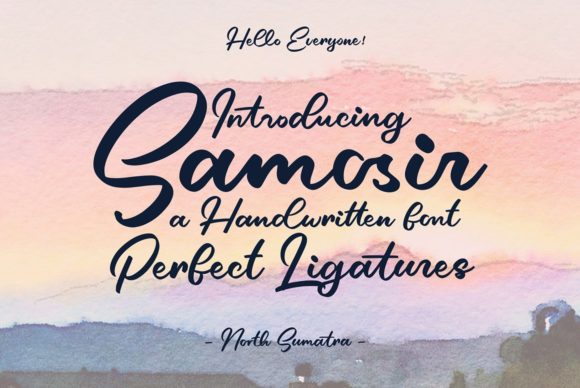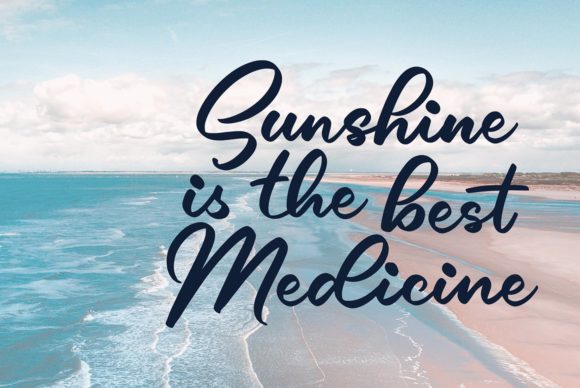
About Samosir Font
Samosir is a beautiful handwritten font, created with the help of a brush pen. It looks lovely on wedding invitations, thank you cards, quotes, greeting cards, logos, business cards and every other design which needs a handwritten touch.